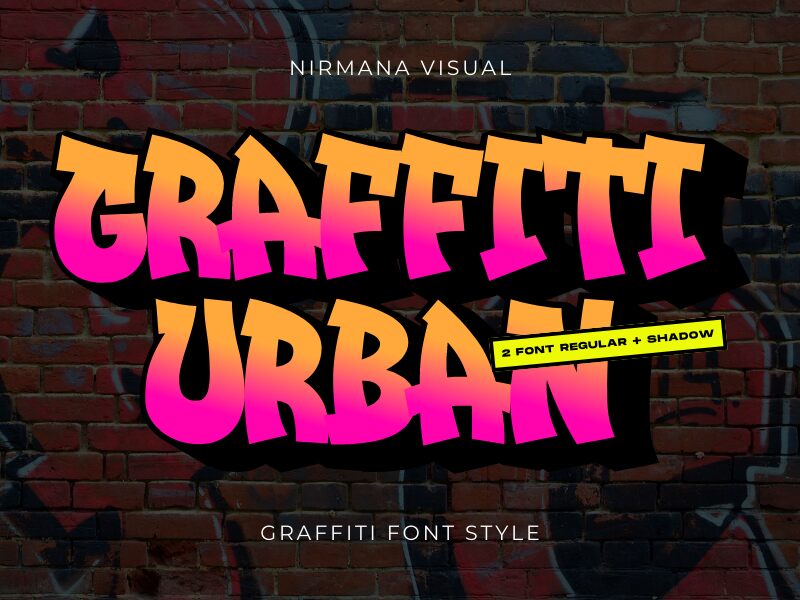
Graffiti Urban, designed by Nirmana Visual, is a bold and captivating graffiti-inspired font that exudes an urban, edgy aesthetic. With its dynamic letterforms and striking visual impact, this font commands attention, evoking a sense of raw energy and raw expression. The bold strokes and angular, rough-hewn elements lend an undeniable sense of grit and authenticity, making it a versatile choice for various design applications.
This font's versatile nature allows it to shine in a wide range of contexts, from bold headlines and impactful branding to eye-catching packaging designs and urban-inspired art projects. Its unique character and rebellious spirit make it an excellent choice for fashion, music, or any creative endeavor seeking to convey a bold, unapologetic message. Graffiti Urban's distinct personality and powerful visual presence make it a standout choice for designers seeking to make a lasting impression.